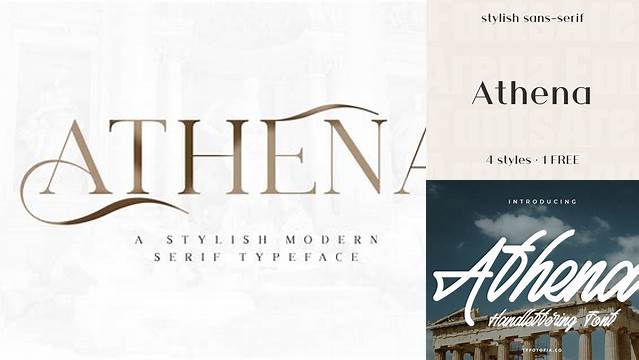
Athena Font: Free Download For Stylish Modern Serifs
Are you guys looking for a font that screams elegance, modernity, and a touch of timeless beauty? Then look no further! The Athena font might just be the perfect typeface to add that extra sparkle to your designs. In this article, we're diving deep into everything Athena – from its unique characteristics to how you can snag it for free and use it to its full potential. So, buckle up and let's explore the world of Athena, a stylish modern serif font that's making waves in the design community!
What Makes Athena Font So Special?
Before we jump into the nitty-gritty of downloading and using it, let’s understand what makes the Athena font stand out from the crowd. This isn't just another serif font; it's a carefully crafted typeface that blends classic serif features with modern design elements. The result? A font that's both sophisticated and contemporary, perfect for a wide range of applications. You see, the Athena font possesses a certain charm that draws you in, making it ideal for branding, editorial designs, and even web typography. The clean lines and balanced proportions ensure readability while the subtle serifs add a touch of traditional elegance. Whether you're working on a logo, a magazine layout, or a website header, Athena can elevate your project with its unique personality. Its versatility is one of its strongest suits, and designers are increasingly turning to Athena to give their work a polished, professional look. The magic of Athena lies in its ability to be both understated and impactful, a rare combination that makes it a valuable asset in any designer's toolkit.
1. The Allure of Modern Serif Fonts
Why are modern serif fonts, like Athena font, having such a moment right now? Well, guys, it's all about the perfect blend of classic and contemporary. Serifs have been around for ages, giving text a formal, trustworthy vibe. But modern serifs? They've got that edge – clean lines, strong shapes, and a touch of personality that makes them perfect for today's designs. Athena perfectly embodies this trend, making it super versatile for everything from branding to websites. Think about it: you want a font that looks professional but not stuffy, elegant but not old-fashioned. Modern serifs hit that sweet spot, and that's why they're popping up everywhere. And with a stylish modern serif font like Athena, you're not just using a font; you're making a statement. You're saying, "I've got an eye for design, and I know what looks good." The appeal is undeniable, and the results speak for themselves. Modern serifs like Athena are here to stay, shaping the visual landscape with their unique blend of tradition and innovation.
2. Key Features of Athena: A Deep Dive
Let's dive deeper into what makes Athena tick. It's not just a pretty face; it's got substance too! We're talking about things like its unique letterforms, the spacing (or kerning) between letters, and the overall weight and balance. The serifs themselves – those little feet at the ends of the strokes – are carefully designed to be both elegant and functional. They add a touch of sophistication without being overly distracting. The proportions of the letters are also key. Athena has a generous x-height (the height of the lowercase letters), which makes it super readable even at smaller sizes. And the spacing? It's just right – not too tight, not too loose – so the text flows beautifully on the page. All these details come together to create a font that's not only visually appealing but also highly practical. A stylish modern serif font like Athena understands that design is not just about aesthetics; it's also about usability. And that’s where Athena truly shines, offering a seamless blend of form and function. The font’s design considers every aspect of typography to deliver a superior reading experience, making it a favorite among designers and readers alike.
3. Athena Font vs. Traditional Serifs
So, how does Athena stack up against traditional serif fonts like Times New Roman or Garamond? The biggest difference is in the overall feel. Traditional serifs have a classic, almost historical vibe. They're great for formal documents or academic texts, but they can sometimes feel a bit stuffy for modern designs. Athena, on the other hand, is like the cool cousin of those fonts. It retains the elegance of serifs but adds a contemporary twist. Think cleaner lines, sharper angles, and a more open, airy feel. This makes Athena much more versatile. You can use it for logos, websites, branding materials – anything that needs a touch of sophistication without feeling dated. A stylish modern serif font like Athena bridges the gap between old and new, offering a fresh perspective on a classic typeface style. It's a testament to how typography can evolve and adapt while still maintaining its core identity. The result is a font that feels both familiar and innovative, a true reflection of modern design sensibilities.
4. Where to Use Athena Font for Maximum Impact
Okay, so you're loving Athena, but where do you actually use it? The possibilities are pretty much endless! For branding, it's a fantastic choice for logos, business cards, and website headers. Imagine a sleek logo with the company name set in Athena – instant sophistication! In the editorial world, it's perfect for magazine headlines, book titles, and even body text (thanks to its readability). Web design is another area where Athena shines. Use it for headings and subheadings to add a touch of elegance to your site. Basically, anytime you want to convey a sense of style, professionalism, and modernity, Athena is your go-to font. It’s a versatile player that can adapt to various design needs, making it a valuable asset in your font library. The key is to use it strategically, ensuring it complements your overall design and enhances your message. A stylish modern serif font like Athena can be the secret ingredient that elevates your work from good to great.